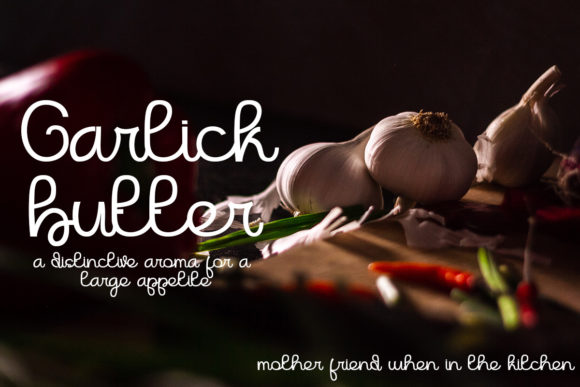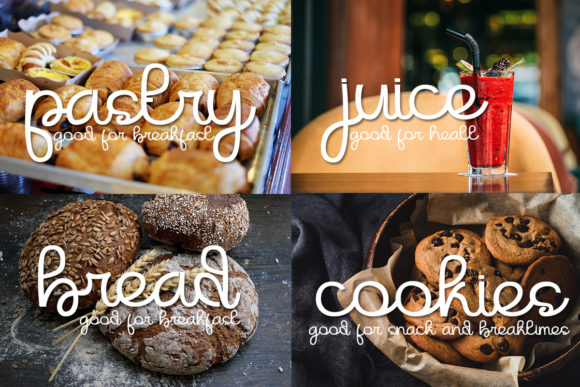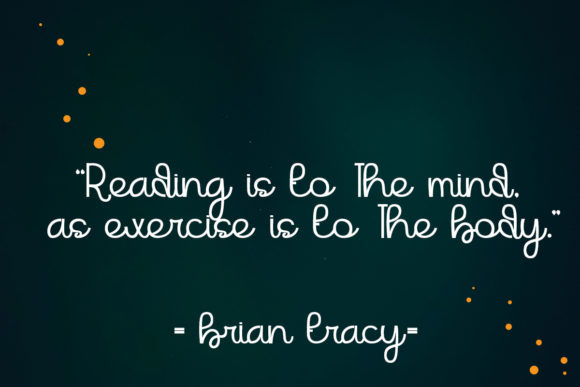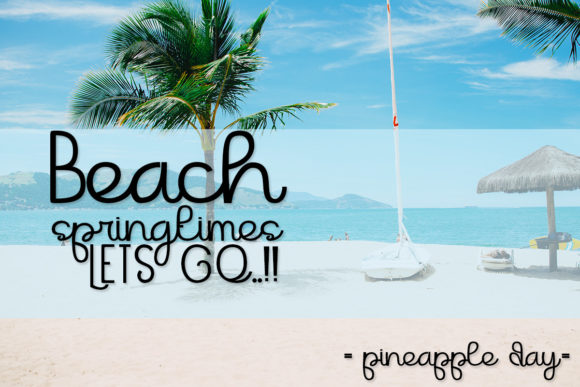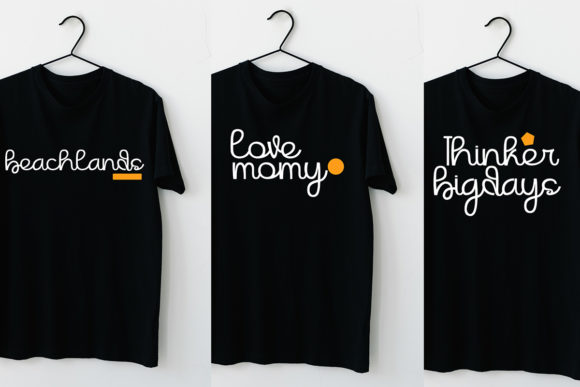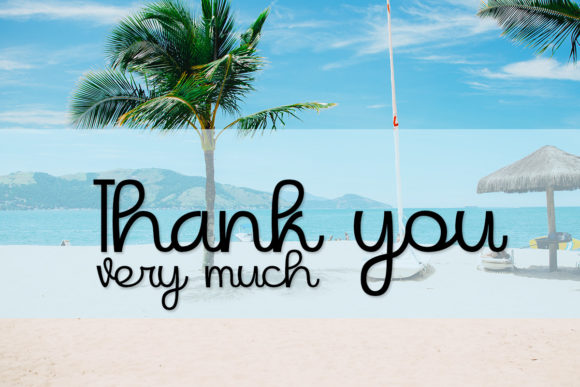
Adding a Touch of Elegance to Your Designs
Have you ever been on a beach at sunset, feeling the warm breeze on your skin and watching the colors dance across the sky? For many creatives, moments like these spark inspiration and fuel their passion for design. And that’s exactly what happened when the Beachlands Font was created – a stylish and delicate script font that captures the essence of a serene beach scene.
Beachlands Font is more than just a pretty face – it’s a versatile tool that can elevate any design project. Its clean, thin, and smooth vibe makes it perfect for adding a touch of elegance to your work, from invitations and posters to social media graphics and branding materials. And with its PUA encoding, you’ll have access to all the glyphs and swashes you need to create stunning designs with ease.
Key Features of Beachlands Font
- Font Family: Beachlands Font is a unique, hand-drawn font designed for use in various creative projects.
- Character Count: The font contains 200 characters, including uppercase and lowercase letters, numbers, and special characters.
- Unique Characteristics: Beachlands Font features a distinctive, hand-drawn style with subtle imperfections, giving it a warm and inviting feel.
Beachlands Font Review
As a designer, I was excited to dive into Beachlands Font, a beautiful script font that screams coastal vibes. Here’s my honest review.
- Unique, flowing style that’s perfect for beach-themed designs
- Well-suited for logos, branding, and typography-heavy designs
- Wide range of weights and styles to choose from
- Great for creating a sense of movement and fluidity
- May be too ornate for some designs, making it difficult to read
- Limited support for languages other than Latin
- Not ideal for small text sizes due to its flowing style
Beachlands Font is a stunning script font that’s perfect for coastal-themed designs. While it has some limitations, its unique style and wide range of weights make it a great addition to any designer’s toolkit. If you’re looking for a font that screams beachy vibes, Beachlands Font is definitely worth checking out.
Use the Beachlands Font for projects that require a coastal or beachy vibe.
Combine the font with images of palm trees, seagulls, or other beach-related elements for a cohesive look.
Beach invitations and party decorations.
Travel brochures and destination guides.
Summer-themed social media graphics and advertisements.
Alternatives to Beachlands Font
Ostrich Sans is a modern sans-serif font with a friendly and approachable feel. It’s ideal for use in titles, headings, and body text where a clean and legible font is required. In comparison to Beachlands Font, Ostrich Sans has a more geometric and straightforward design, making it a great choice for digital products and interfaces.
Great Vibes is a beautiful, elegant script font that’s perfect for adding a touch of sophistication to your designs. It’s great for use in titles, quotes, and other text elements where a handwritten feel is desired. Compared to Beachlands Font, Great Vibes has a more organic and expressive design, making it a great choice for creative and artistic projects.
Merriweather is a classic serif font with a timeless and elegant feel. It’s ideal for use in body text, titles, and headings where a traditional and professional look is required. In comparison to Beachlands Font, Merriweather has a more formal and structured design, making it a great choice for print materials and formal documents.
Playfair Display is a luxurious and elegant serif font with a high-end feel. It’s perfect for use in titles, headings, and other text elements where a sophisticated and refined look is required. Compared to Beachlands Font, Playfair Display has a more ornate and decorative design, making it a great choice for luxury brands and high-end products.